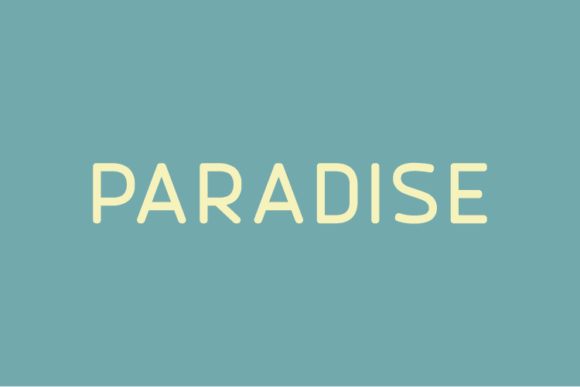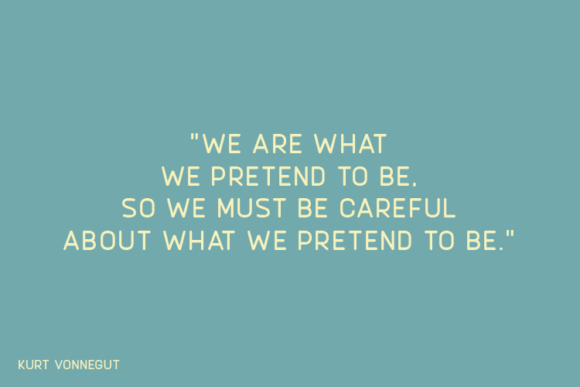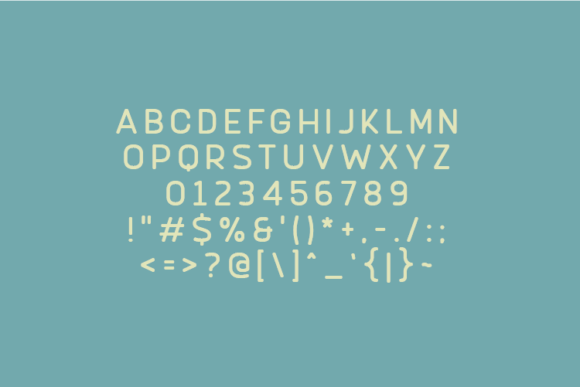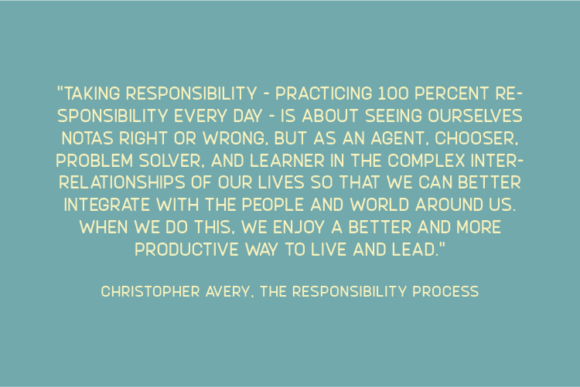
Paradise Font: A Modern Sans Serif for Logo Design & Branding
About the Paradise Font
Meet Paradise Font, a stunning font that brings a touch of elegance and professionalism to any design. Introducing Paradise, a modern, classy sans serif typeface.
An extremely versatile font, perfect for logos, weddings, invitations, quotes, advertisements, print, magazines, and more!
Paradise excels as a display typeface, ideal for headlines, logos, short-form text in advertising, and packaging design where its modern elegance shines. Its refined curves and balanced forms make it suitable for wedding invitations and branding projects requiring a sophisticated touch. However, its less-than-optimal x-height makes it unsuitable for extended body text or UI elements where readability is paramount.
Pairing Paradise works best with fonts that contrast its clean lines. Consider a geometric sans-serif for a contemporary feel, or a classic serif like Garamond for a more traditional yet balanced aesthetic. A playful script font could add a touch of personality to invitations, but should be used sparingly to avoid overwhelming Paradise’s subtle elegance.
Paradise projects a sophisticated, yet approachable personality; it’s bold enough to make a statement but retains a level of understated refinement. This makes it well-suited for brands aiming for a modern, upscale image without appearing overly austere.
Paradise Font Usage Examples
Paradise Font Example